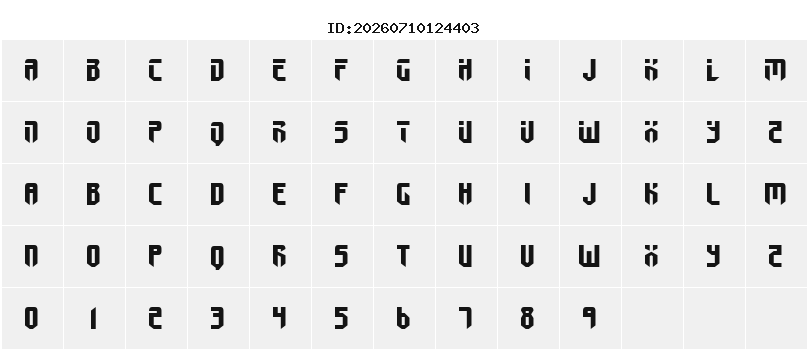
Fedyral II Expanded Preview
• Font Name: Fedyral II Expanded
• Font Style: Expanded
• Full Font Name: Fedyral II Expanded
About Fedyral II Expanded.ttf
Fedyral II Expanded.ttf is a modern, elegant sans-serif font designed for ultimate readability and visual harmony. Perfect for branding, headlines, web design, and print materials.